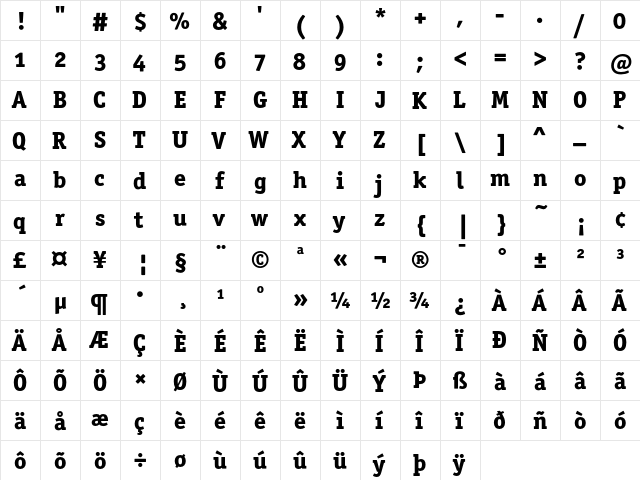
OfficinaSerITC ExtraBoldOS
Design Context for OfficinaSerITC Typeface
OfficinaSerITC takes a measured approach to typography — its balanced proportions and neutral character make it a reliable workhorse for both digital and print work. Its bold stroke weight gives it real presence on the page.
Pro Tip: Pair OfficinaSerITC with a font of contrasting weight or personality to build a more expressive typographic hierarchy.